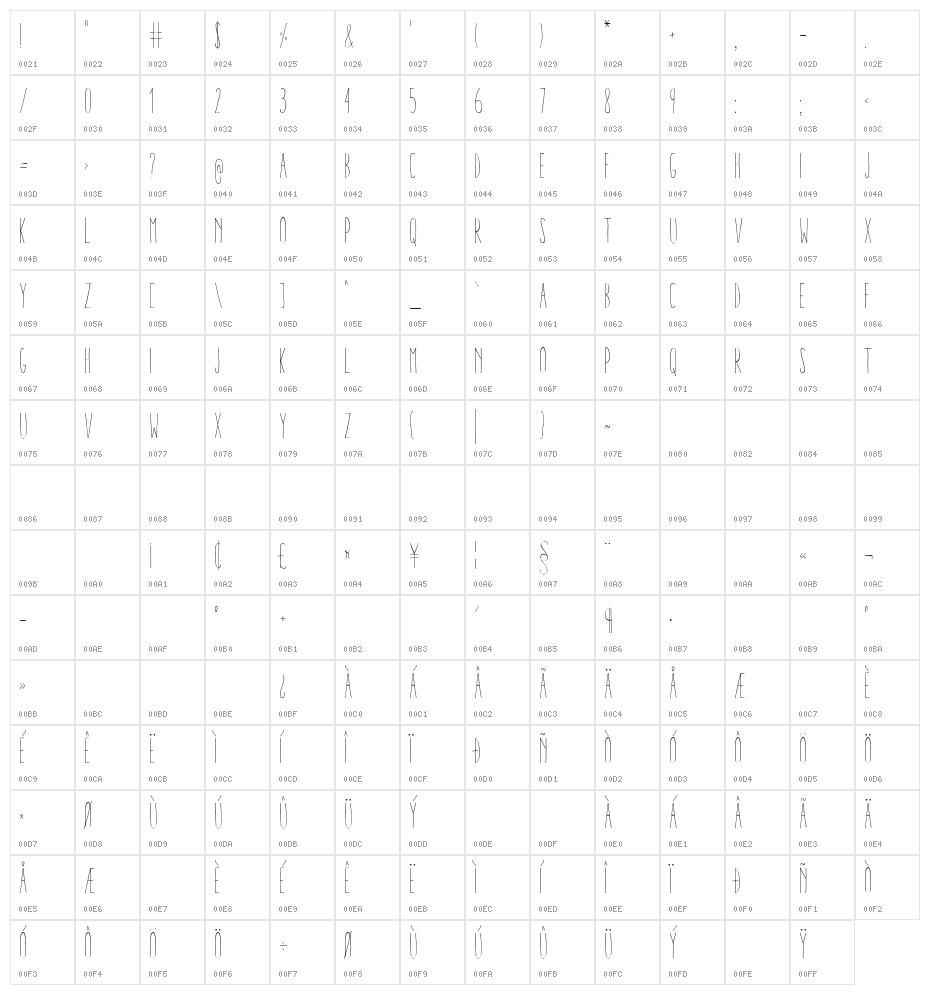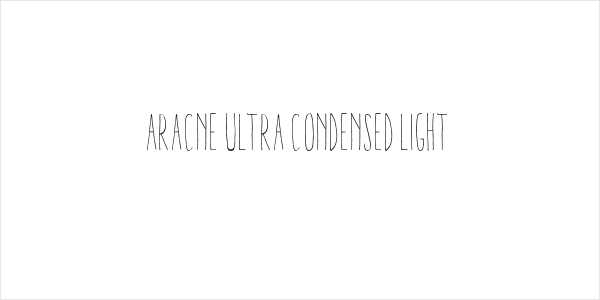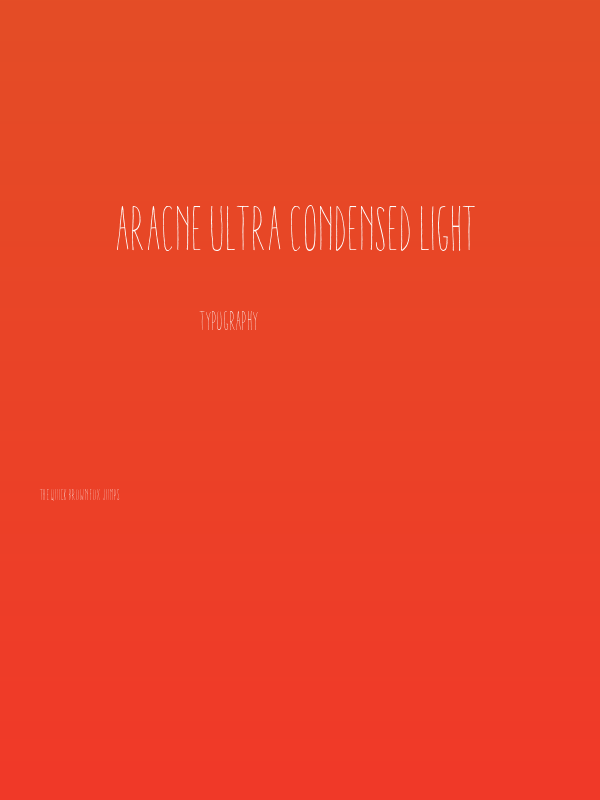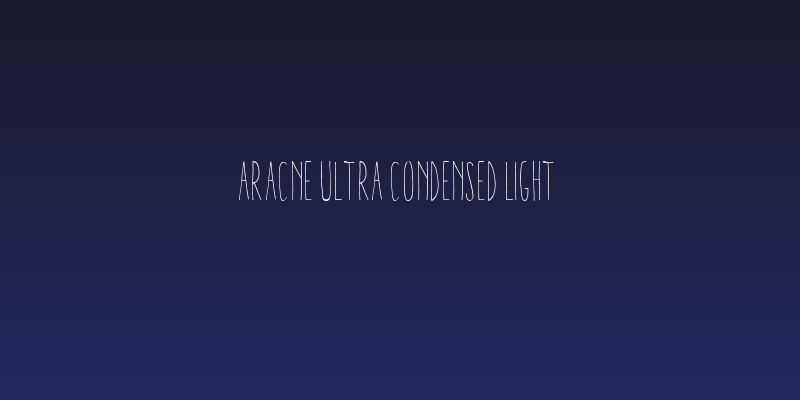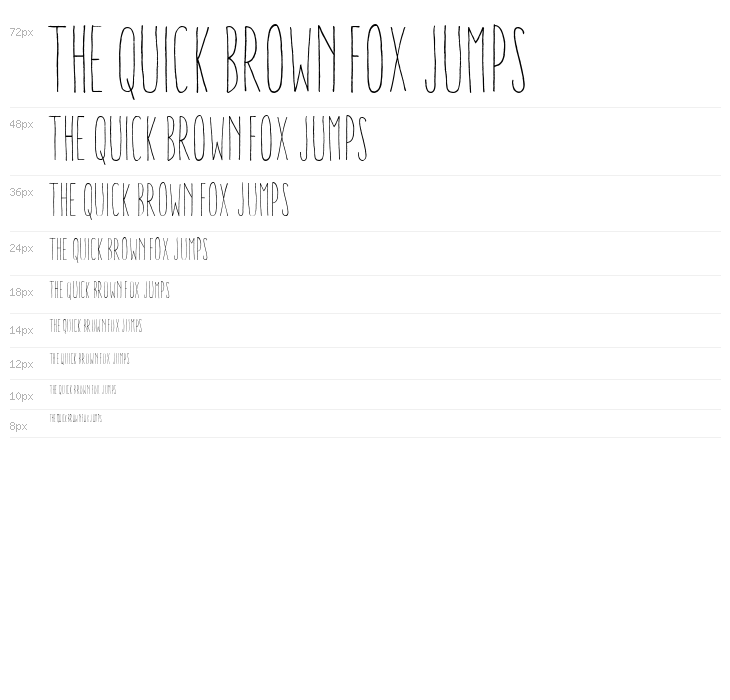
Aracne Ultra Condensed Light Font
Aracne Ultra Condensed Light Description
This font features an ultra-condensed and light design, characterized by its tall and narrow letterforms. The strokes are thin and slightly irregular, giving it a hand-drawn appearance. The overall look is minimalist yet expressive, with a quirky charm that adds personality to any text. The uppercase and lowercase letters maintain a consistent style, while the numerals and special characters complement the alphabet with their slender and elongated shapes. This font is ideal for projects that require a touch of elegance and uniqueness.
| Proposed Projects | Ideal for artistic posters, modern invitations, unique branding, and editorial design. |